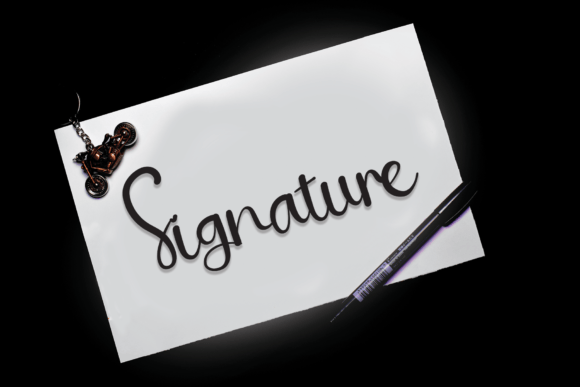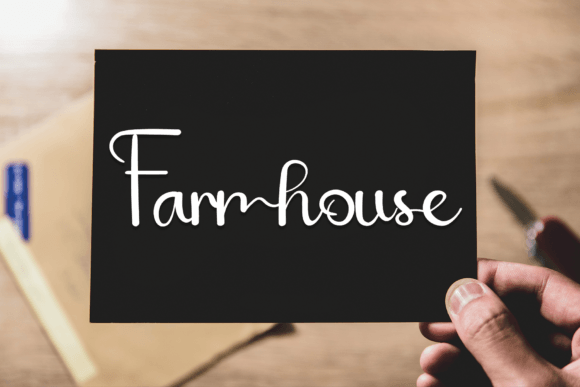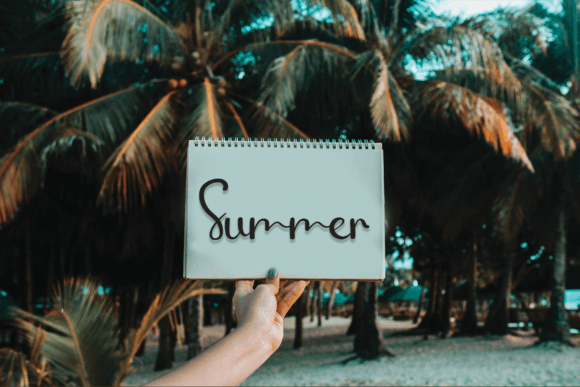
Handcraft Font
Handcraft Handwritten Font – Fun and Friendly Script
The Handcraft Handwritten Font is a playful and stylish script typeface designed to bring joy and personality to your creative work. With its smooth handwritten strokes and approachable design, it is suitable for both personal and professional projects. Whether you’re crafting invitations, posters, or digital artwork, this font ensures your designs look warm and engaging.
A Script with Playful Personality
The Handcraft Handwritten Font blends casual handwritten strokes with a lively and friendly style. Its natural flow makes designs feel approachable, while its neat balance ensures readability in both print and digital projects. Because of this, it adapts to a wide range of creative needs.
One of the most common uses of the Handcraft Handwritten Font is in invitations and greeting cards. Its fun and approachable style makes wedding stationery, birthday cards, and thank-you notes feel more personal. At the same time, it is an excellent fit for posters, branding, and social media designs, where a handwritten font adds originality and creativity.
The Handcraft Handwritten Font adapts effortlessly across various types of projects. From crafts and product packaging to decorative quotes and digital graphics, it adds a handwritten charm that feels both modern and timeless. Its flexibility ensures it becomes a favorite choice in your design library.
Why Designers Love Handcraft Font
Designers love the Handcraft HandwrittenFont because it combines playfulness with usability. Its friendly strokes make projects more engaging, while its readability ensures professional-quality results. This balance of creativity and practicality makes it a must-have typeface.